What is a Bitmap Font
A Bitmap Font is a digital file that contains a set of glyphs (characters) that are graphically related to each other. When enlarged, the edges of a bitmap font get jagged unlike a scalable font which looks the same no matter how much you enlarge it. This is because a bitmap font is comprised of several pixels that make up a single glyph which causes quality degradation when you zoom in.
1. Karetkar
This is a simple open-source application that allows you to create bitmap fonts using custom glyph sets and then export it to an OTF (OpenType Format) file. You can use it to design fonts for specific use cases as it does not require the creation of all possible glyphs. Just click on the link that we have provided below to navigate to this website.
Choose the character that you want to generate by clicking on it in the gallery on the right of the page and then use the various tools such as basic pencil, eraser, fill and shape to draw the glyph per your requirements. Further, click on all the characters (if required) from the gallery one by one and repeat the same operation as above to design them. Remember to click on the ‘Submit’ button to save the glyph after it is created.
Once you have finished designing all the glyphs, click on the ‘Export’ button followed by the ‘Confirm’ button, enter a font family and style name, and click on ‘Ok’ to save the font in OTF format.
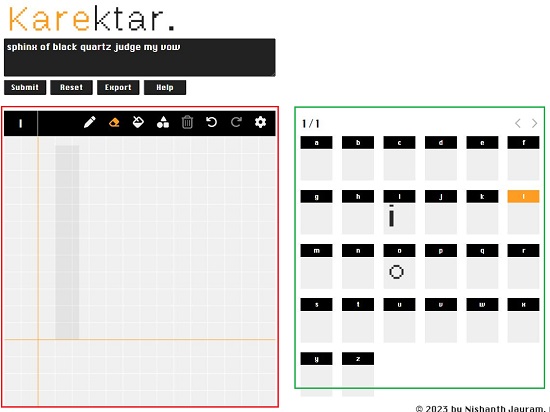
2. BitFontMaker from Pentacom
This is yet another Bitmap Font Generator that you can use to create Bitmap Fonts that you can export as a TTF (TrueType Font) file. Just click on the link that we have provided below to navigate to this tool.
BitFontMaker works much the same as the previous tool but allows you to create lower as well as uppercase characters, numbers and special characters which was not possible with Karetkar. Select the character that you want to generate from the map towards the right of the page and then click n on the ‘magic wand’ icon to automatically generate the basic shape. You can then go ahead and modify the glyph as required by clicking on the squares in the grid. Alternatively, you can also start from scratch in case you wish to create a completely different type of glyph for the chosen character. Further, click on all the characters (if required) from the gallery one by one including the numerical and special characters and repeat the same operation as above to design them.
To preview the glyphs, click on the ‘Draw’ button in the ‘Test Drive’ section. When you are satisfied with the results and have finished generating the required characters, click on the button ‘Build Font’, input the name of the Font and Author, and then click on ‘Build’ to download the font file to your system in TTF format.
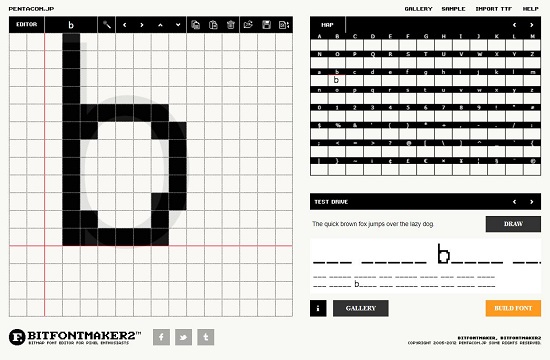
3. SnowB Bitmap Font
This program will allow you to generate bitmap fonts from TrueType fonts. It generates both image files and character descriptions that can be easily rendered by any application. Just click on the link that we have given below to use this tool.
Click on the button ‘Add Font File’ and upload the TrueType Font file from your local system. Now, use the tools and features in the sidebars on the left of the screen to modify the font size, max. width & height, padding, spacing, offsets and more. You can use the sidebar towards the right to configure the style of the strokes and shadows, background colour and more.
The preview of all the changes that you are making will be available in the middle of the workspace in real time. When you are satisfied with the output, you can click on the ‘Export’ link in the top navigation bar, input the font and file name, choose the output file format such as fnt, xml etc and then click on ‘Save’ to download the file to your system.